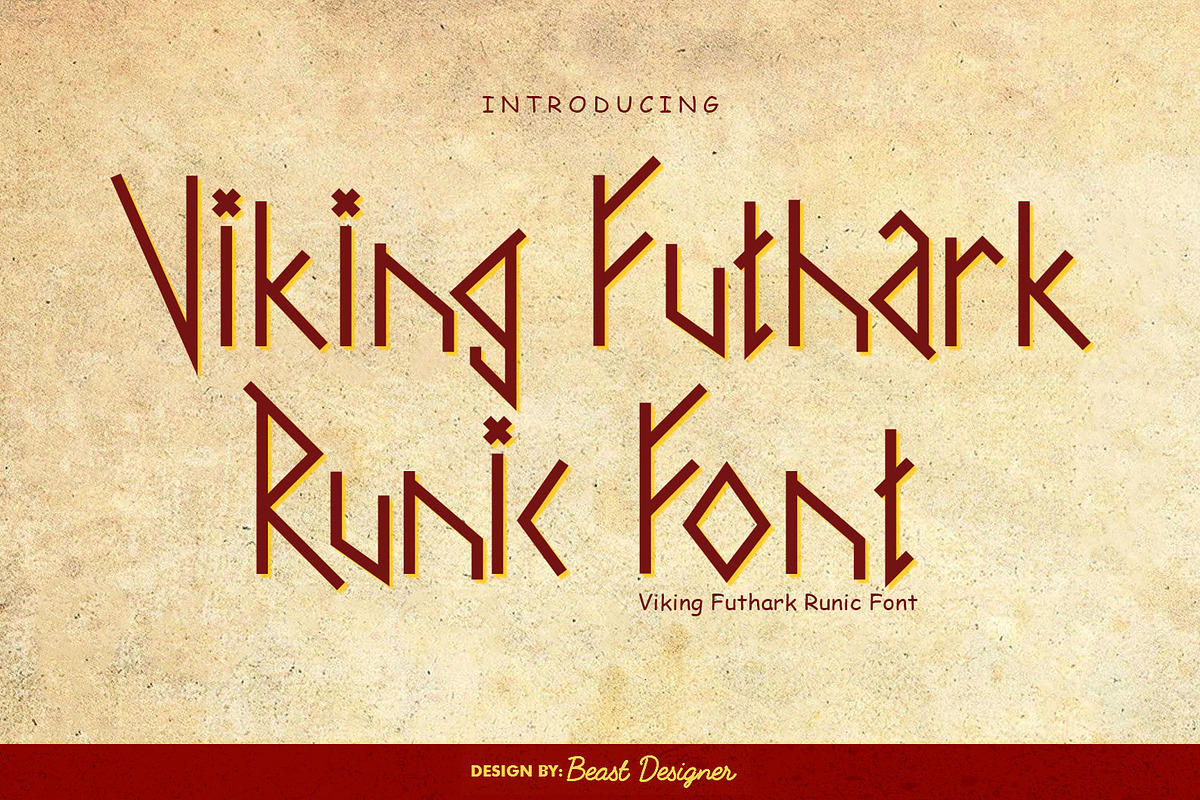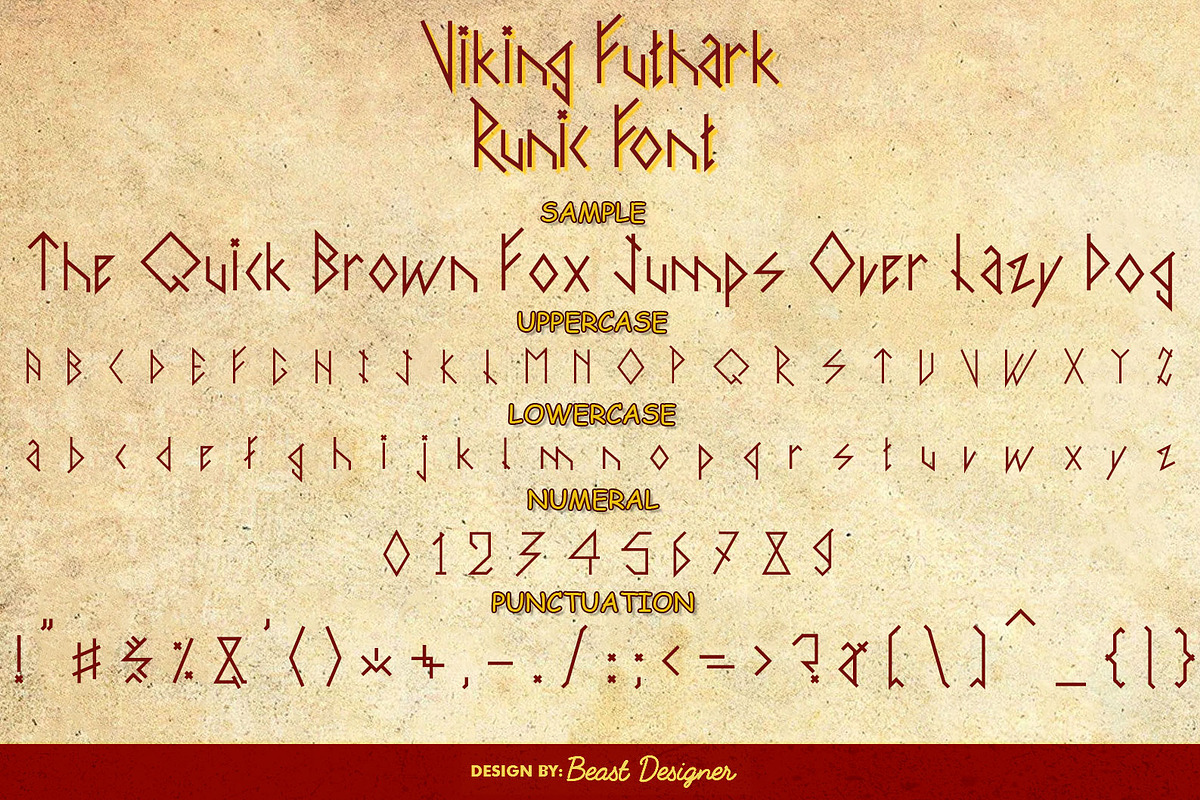
Viking Futhark Runic
Viking Futhark Runic Font is a unique typeface designed to resemble the ancient Norse runes known as Elder Futhark. Each character in this font is carefully crafted with an angular and minimalist aesthetic, faithfully capturing the essence of these historical symbols. The font's powerful and mystical vibe makes it ideal for projects seeking to evoke the rugged history and mythology of the Viking age. Its versatility lends itself well to fantasy-themed designs, historical documentaries, tattoos, and any project needing a touch of ancient Nordic heritage.